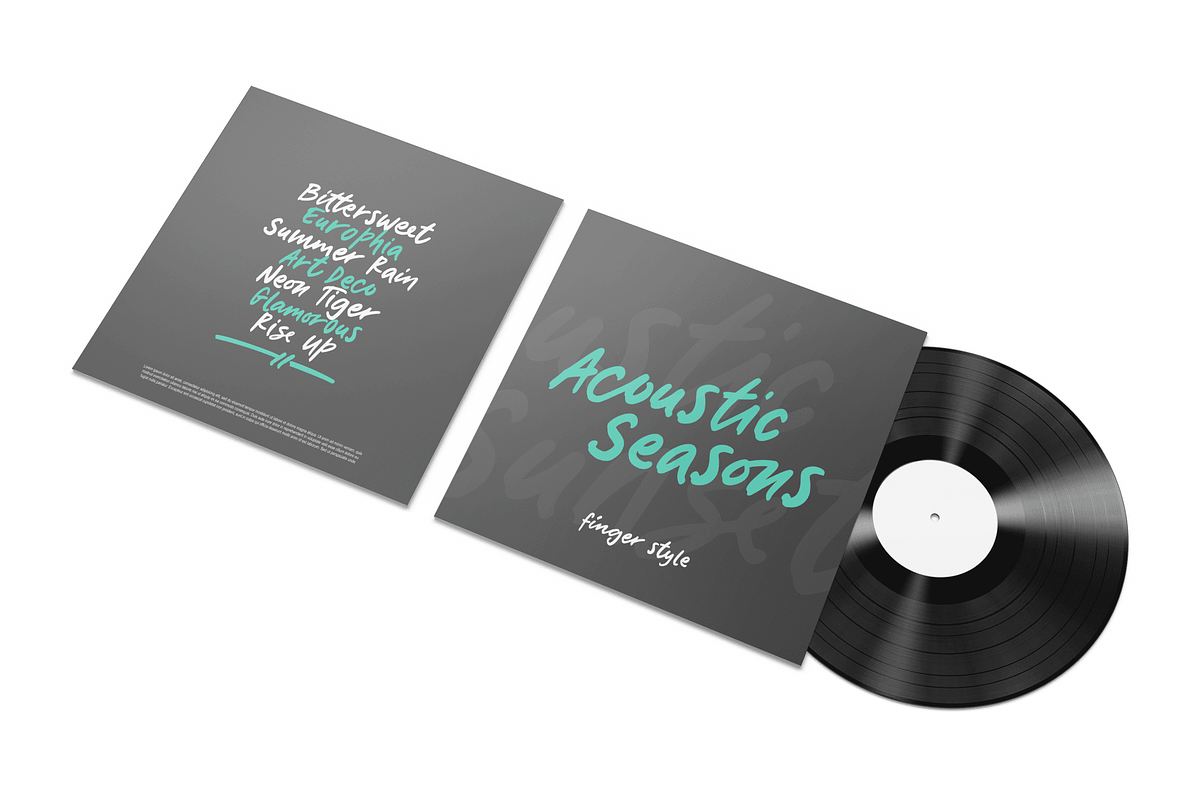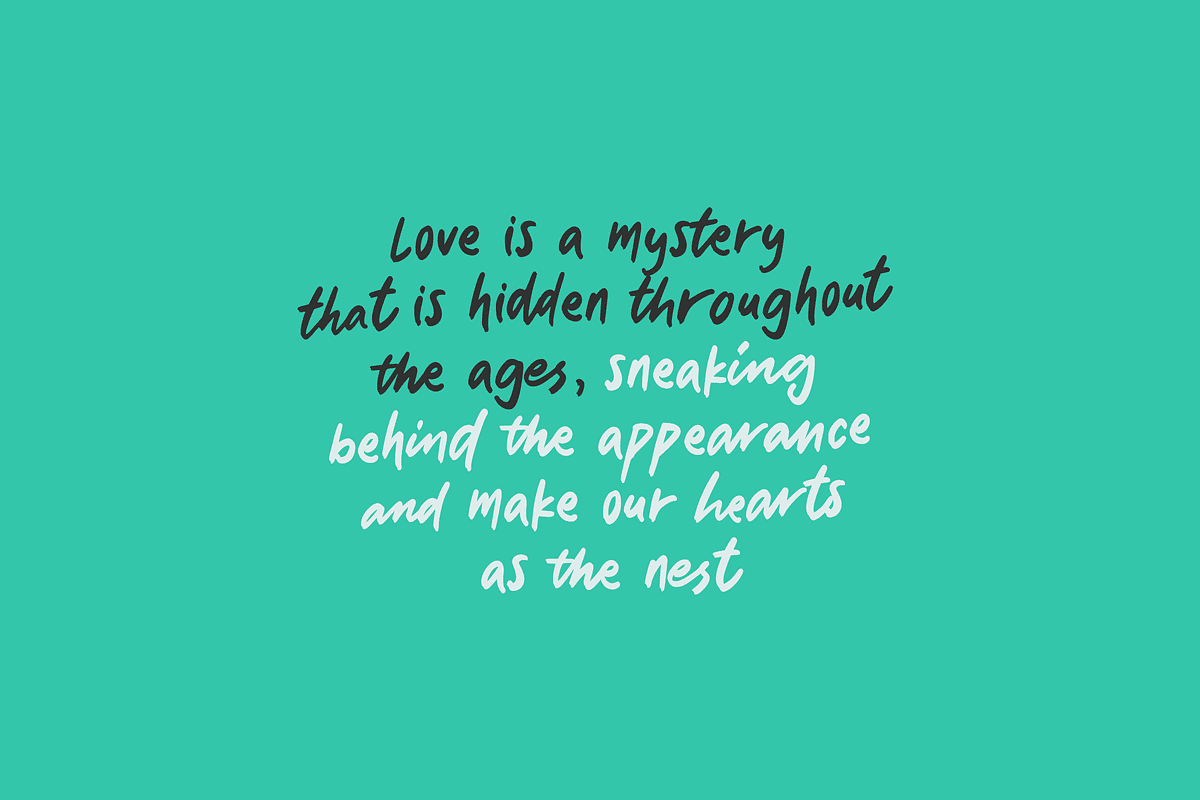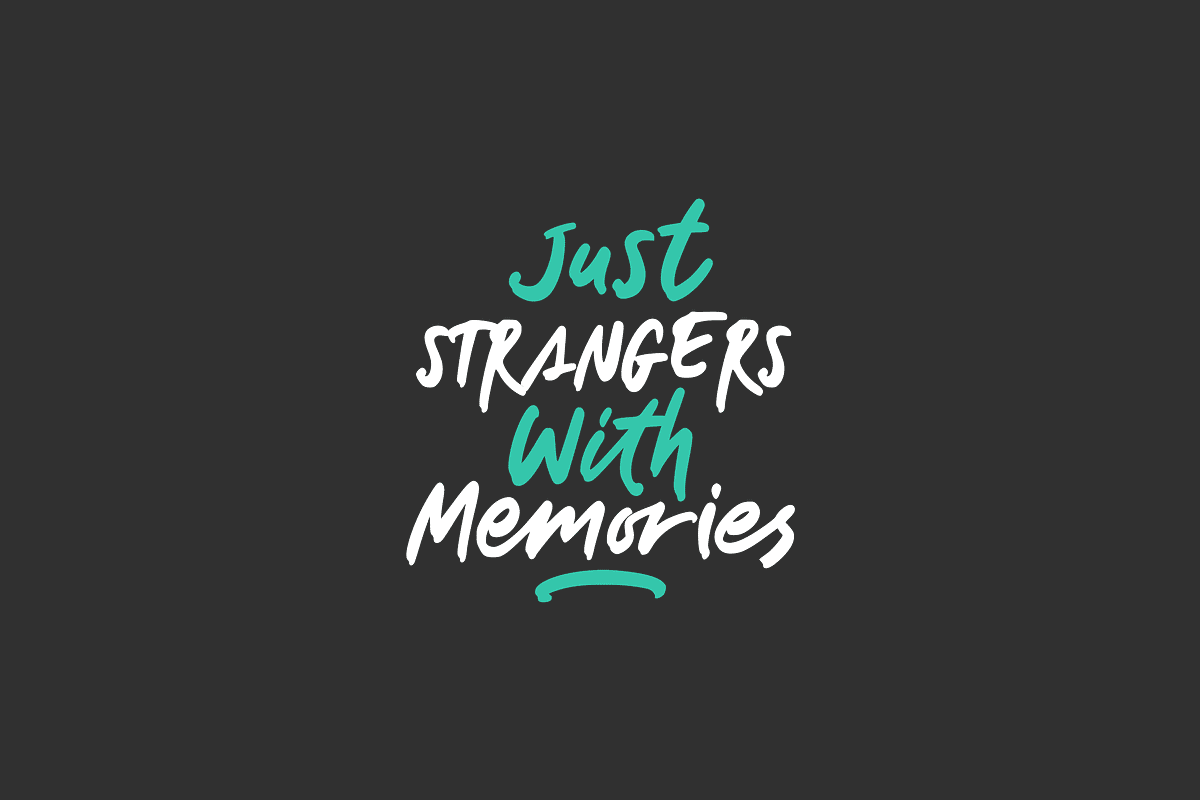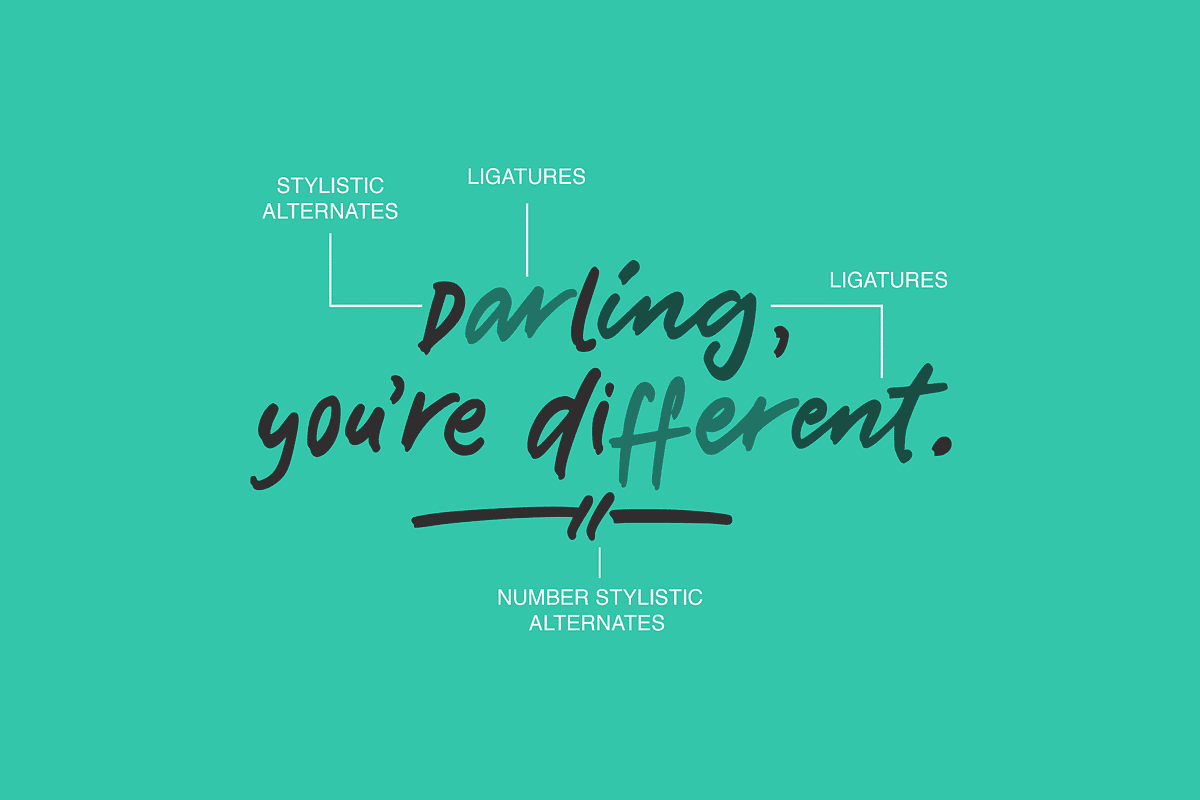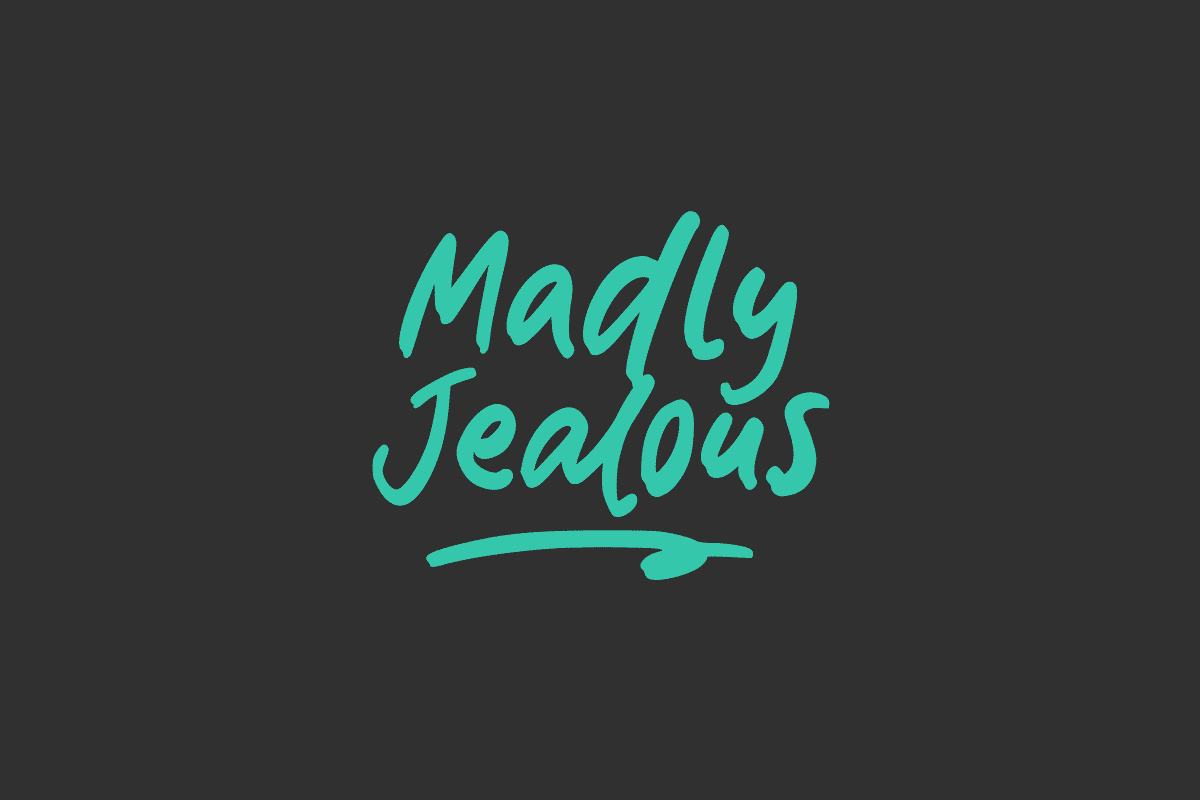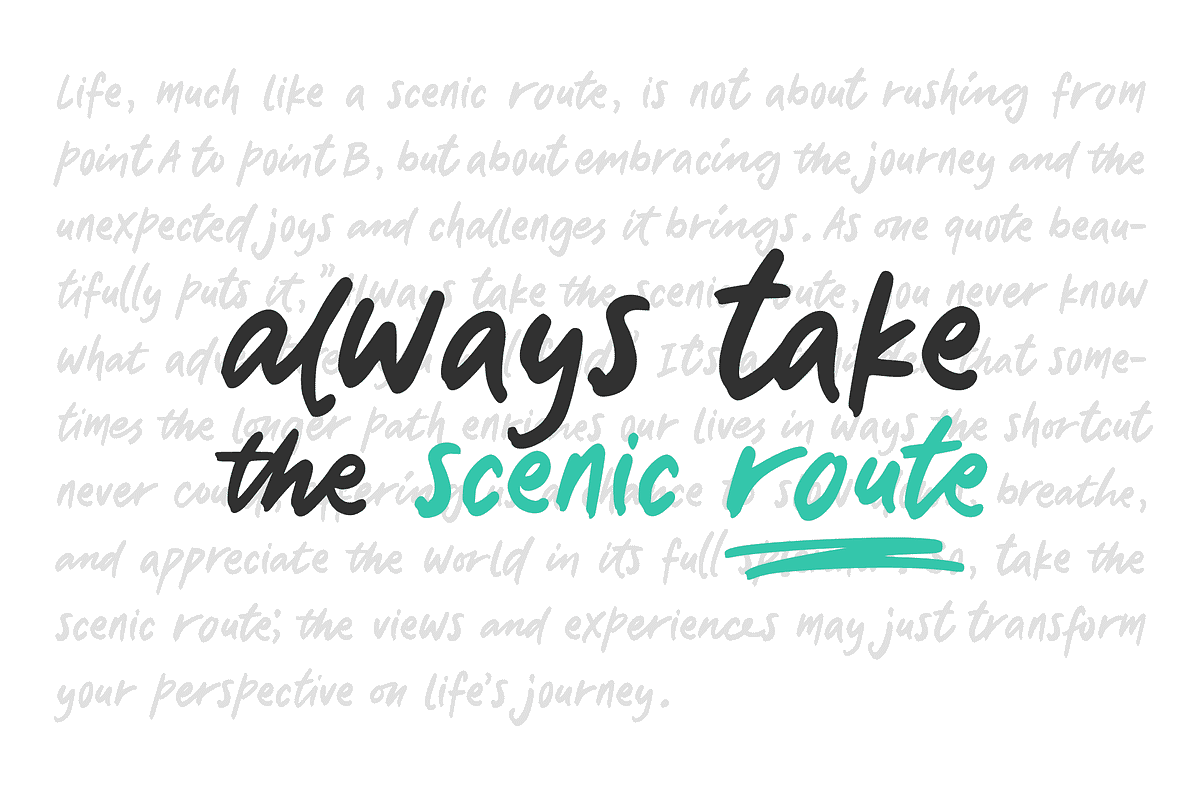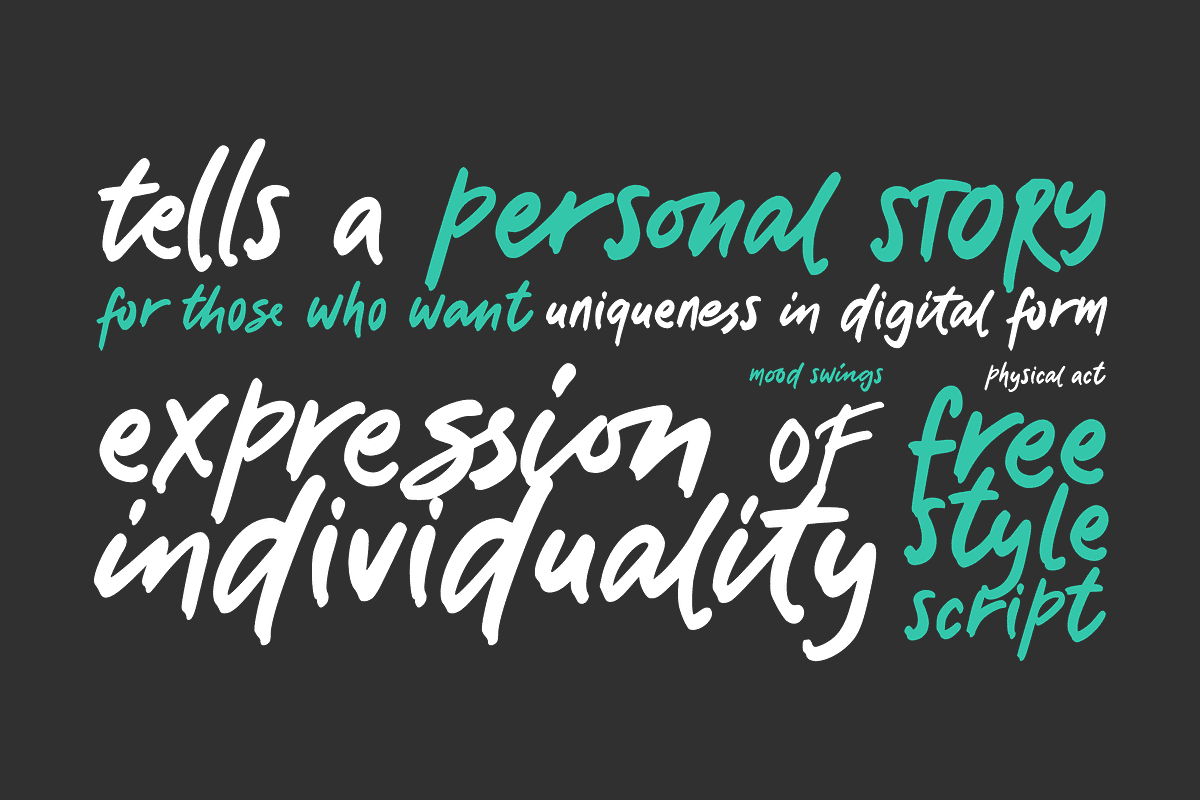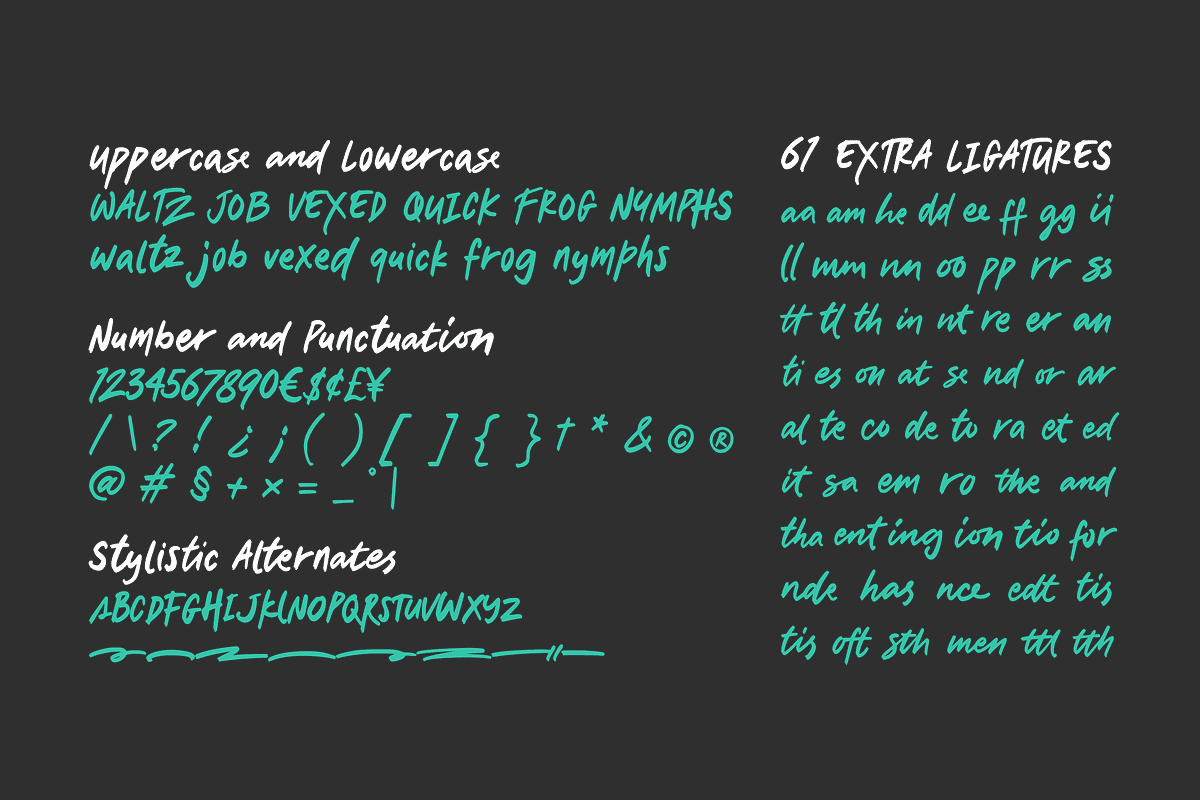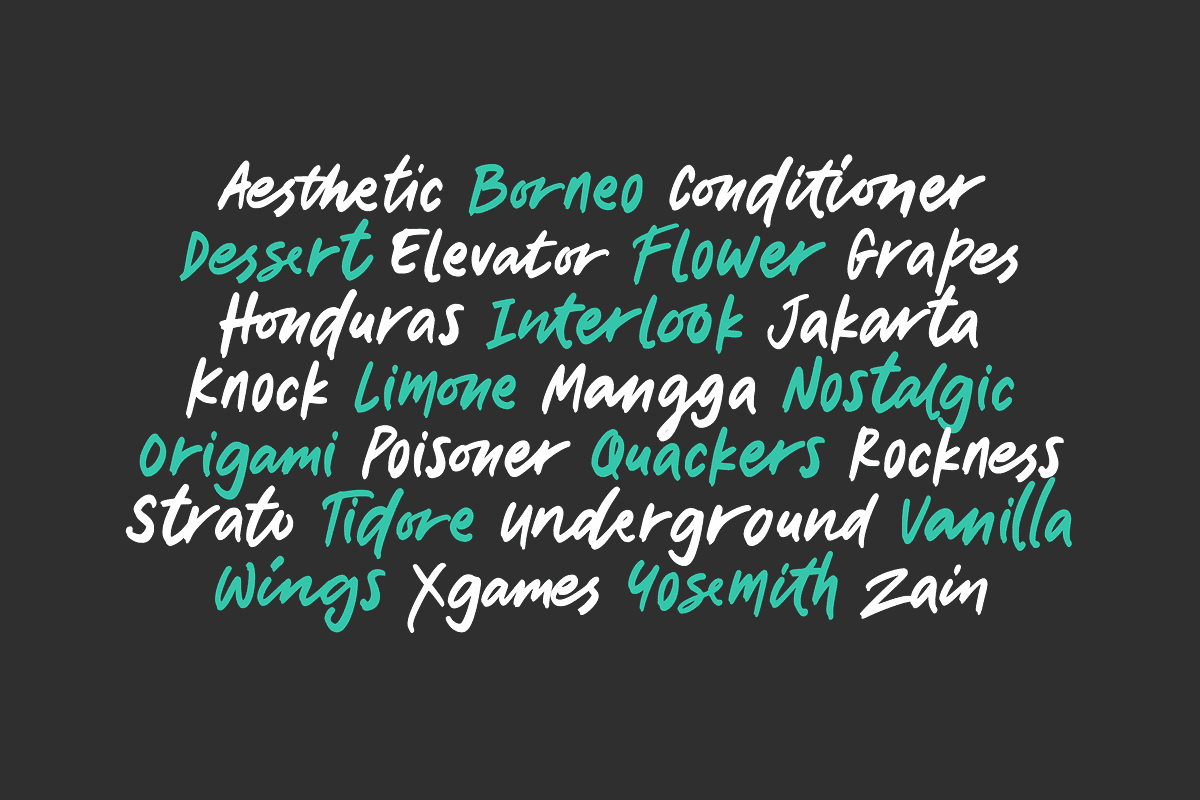
Madly Jealous
The art of natural free style handwriting is a beautiful expression of personal touch in a world increasingly dominated by digital communication. It’s a form that can convey not just information, but also the personality and mood of the writer. With a variety of fonts available online, anyone can find a style that resonates with their personal aesthetic and use it to add a unique flair to invitations, branding, or even personal journals. These fonts capture the essence of human touch in each curve and line, making them perfect for projects that require a sense of authenticity and warmth. Whether you’re looking for something elegant and flowing or quirky and casual, there’s a natural handwriting font that’s just right for your needs.